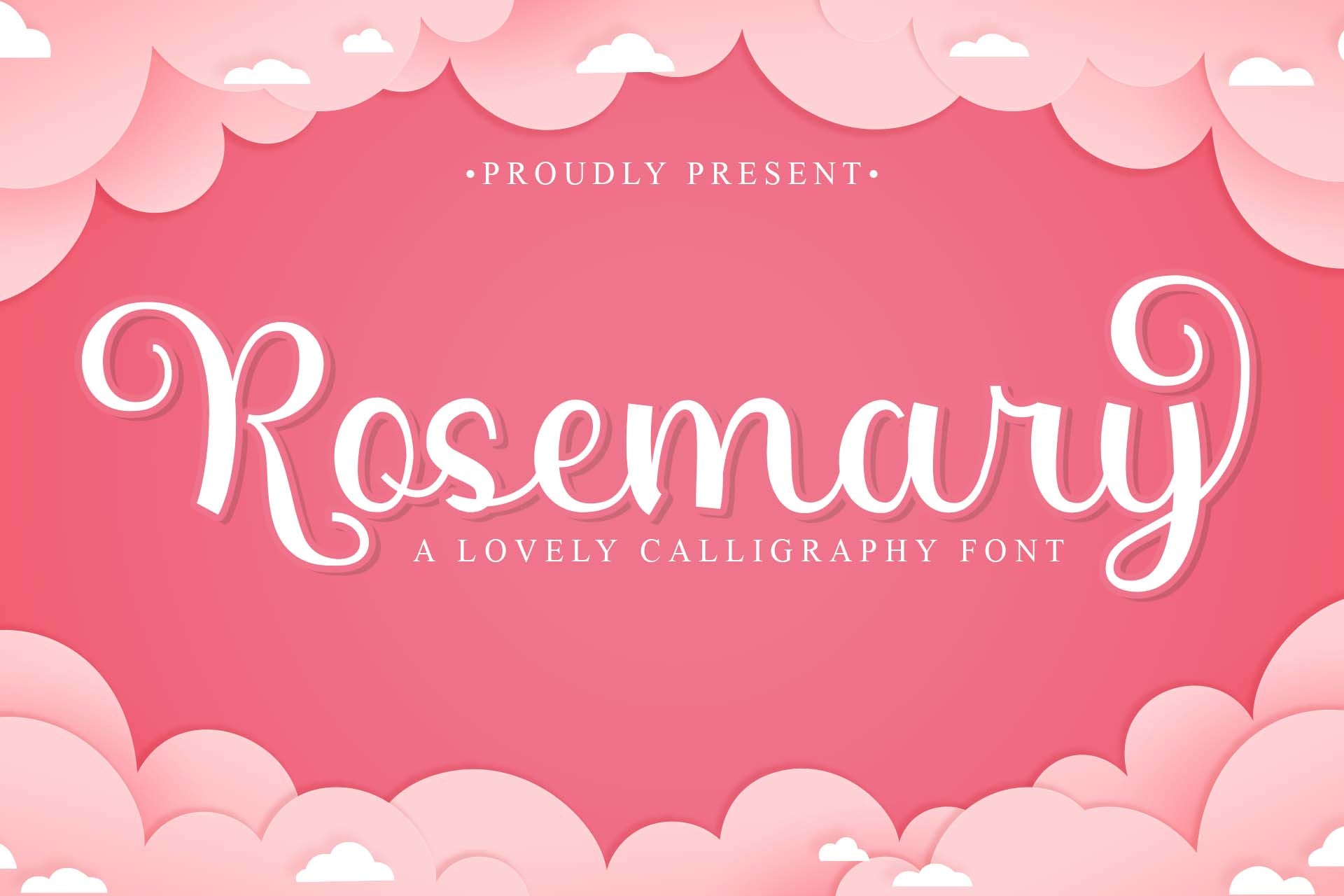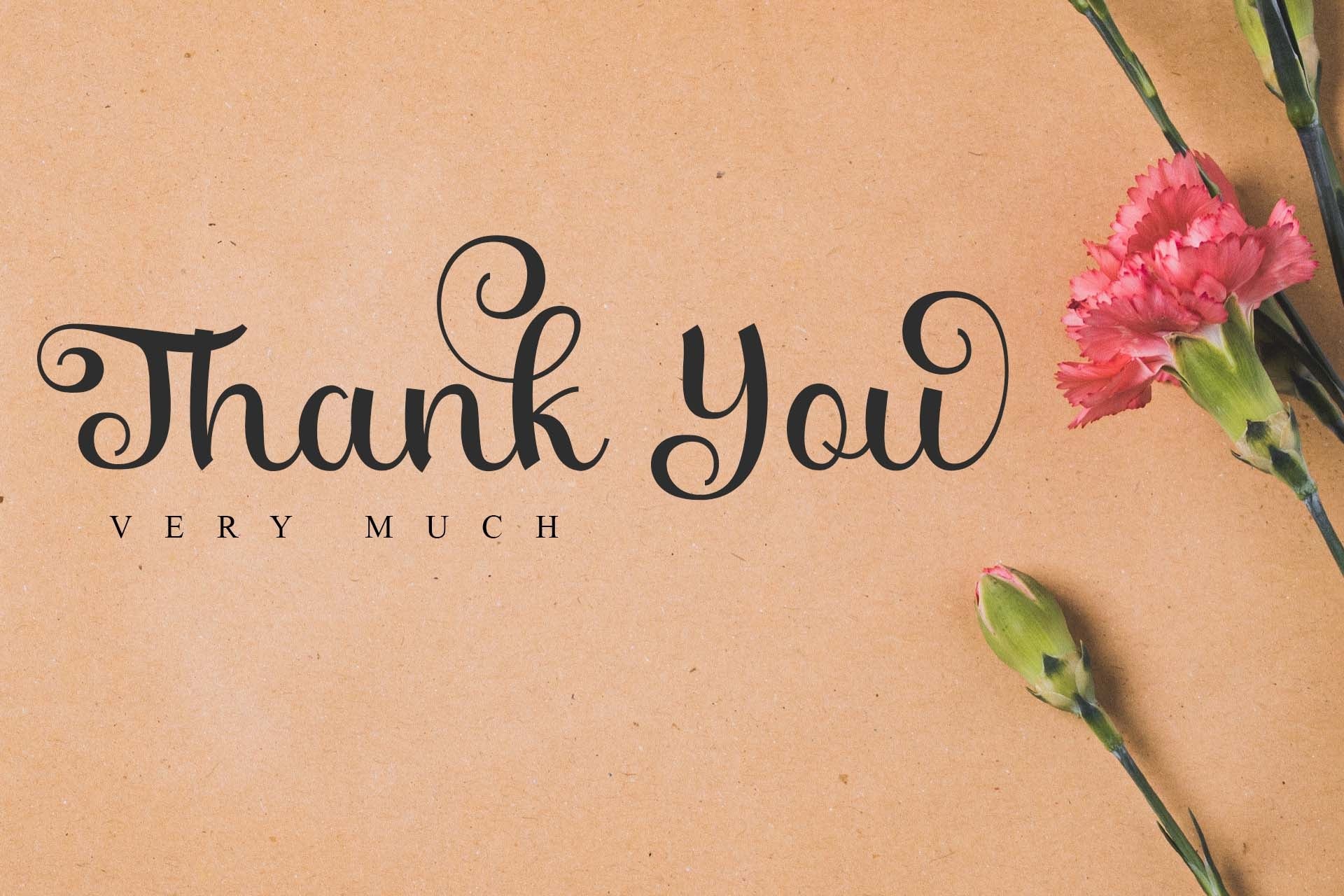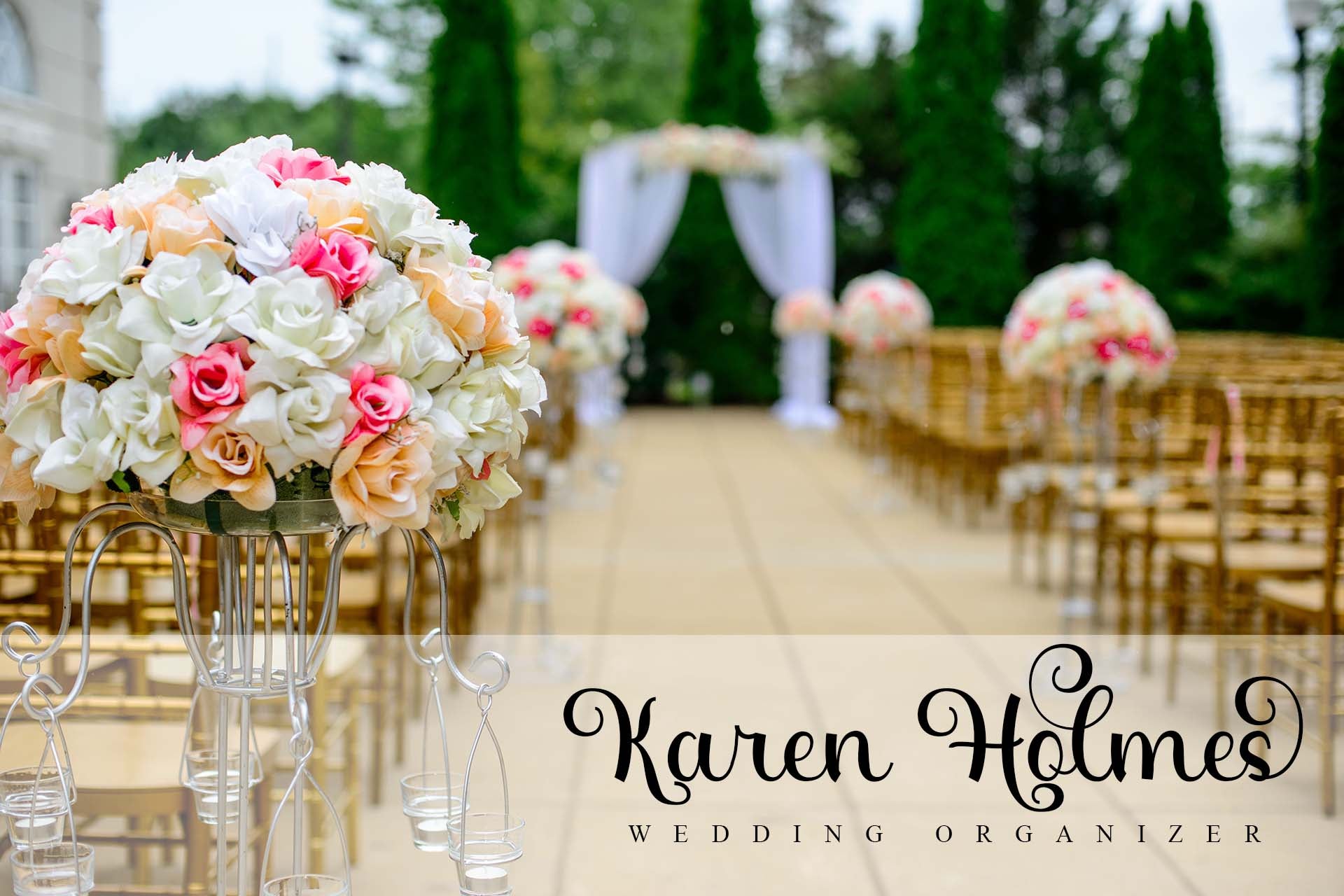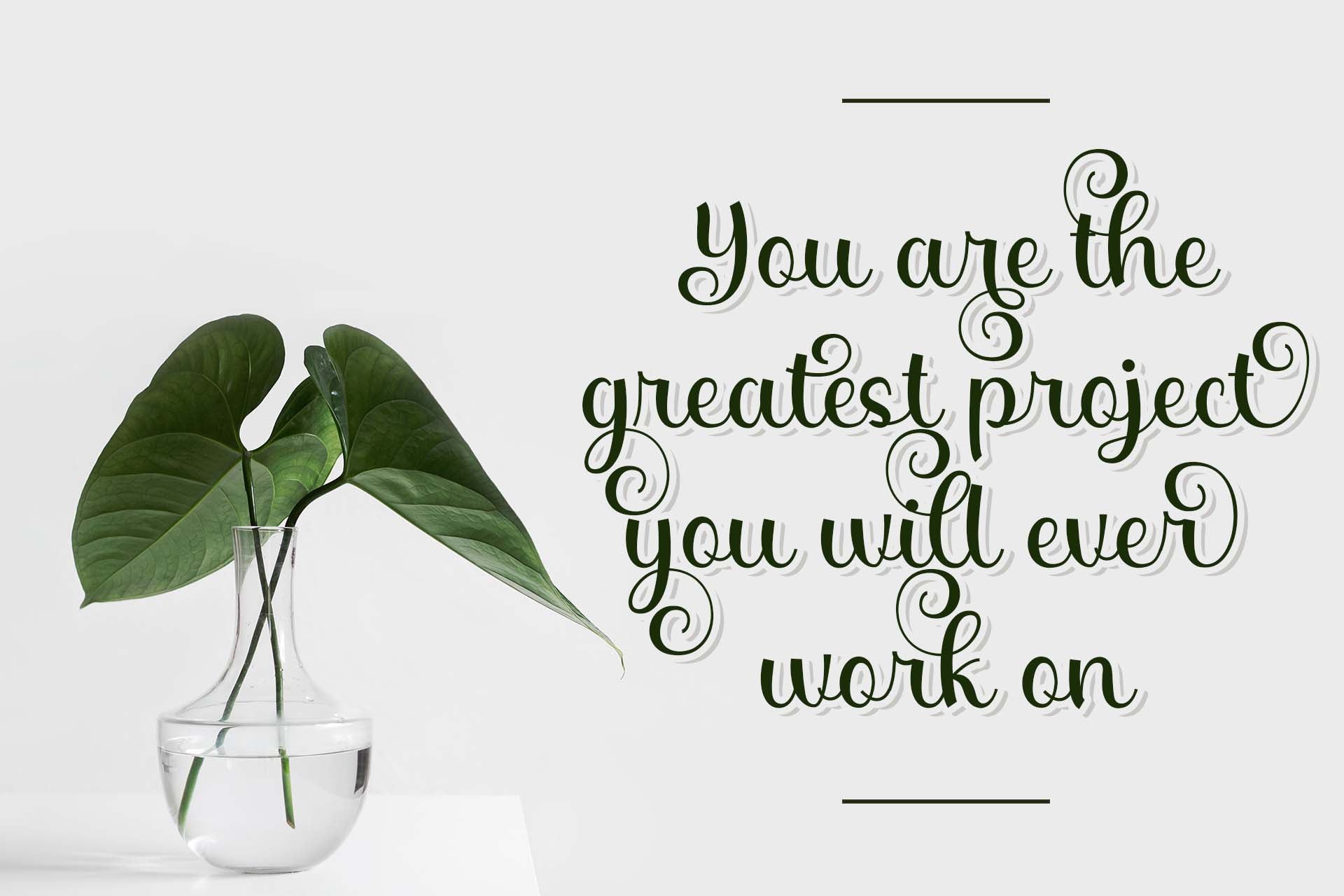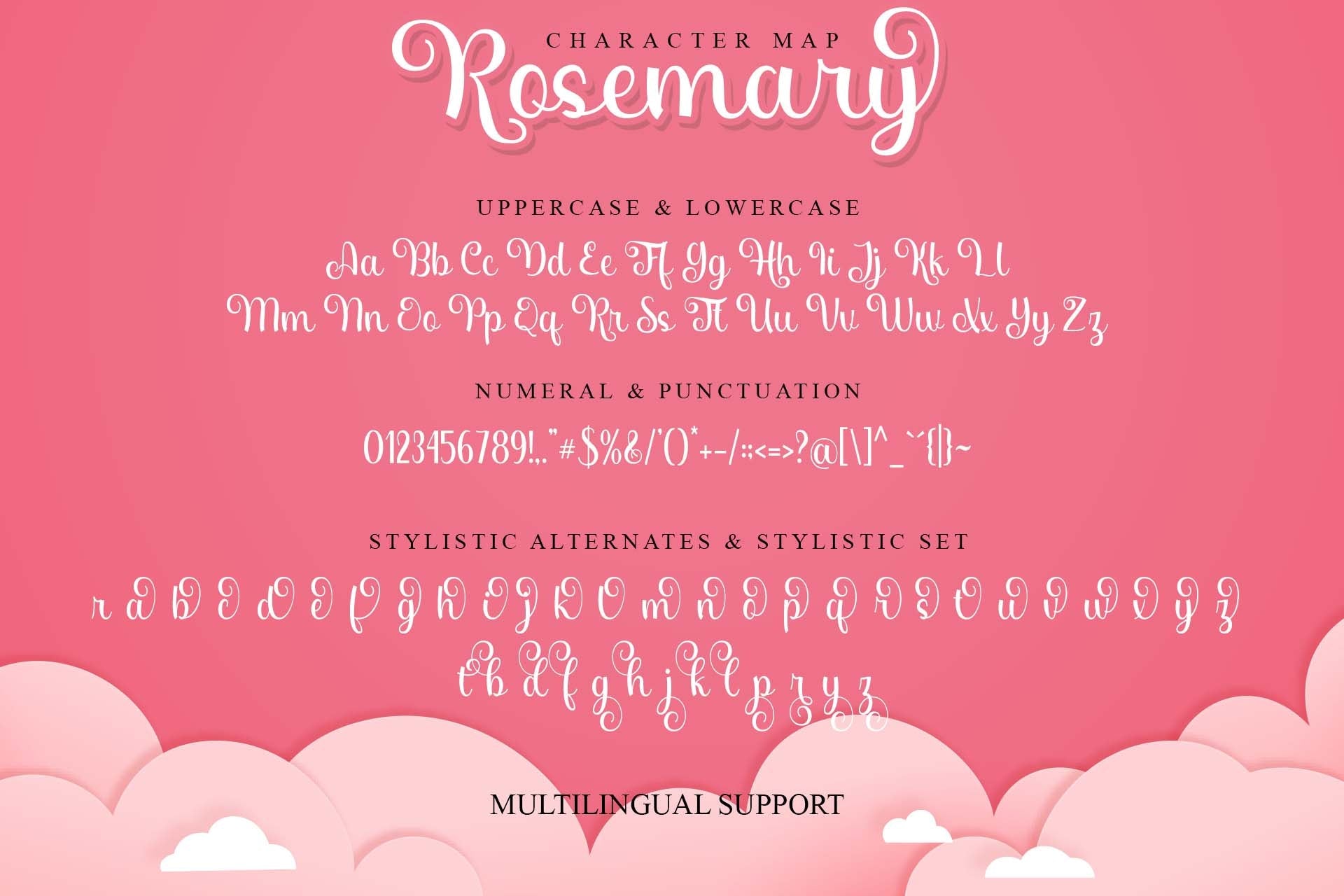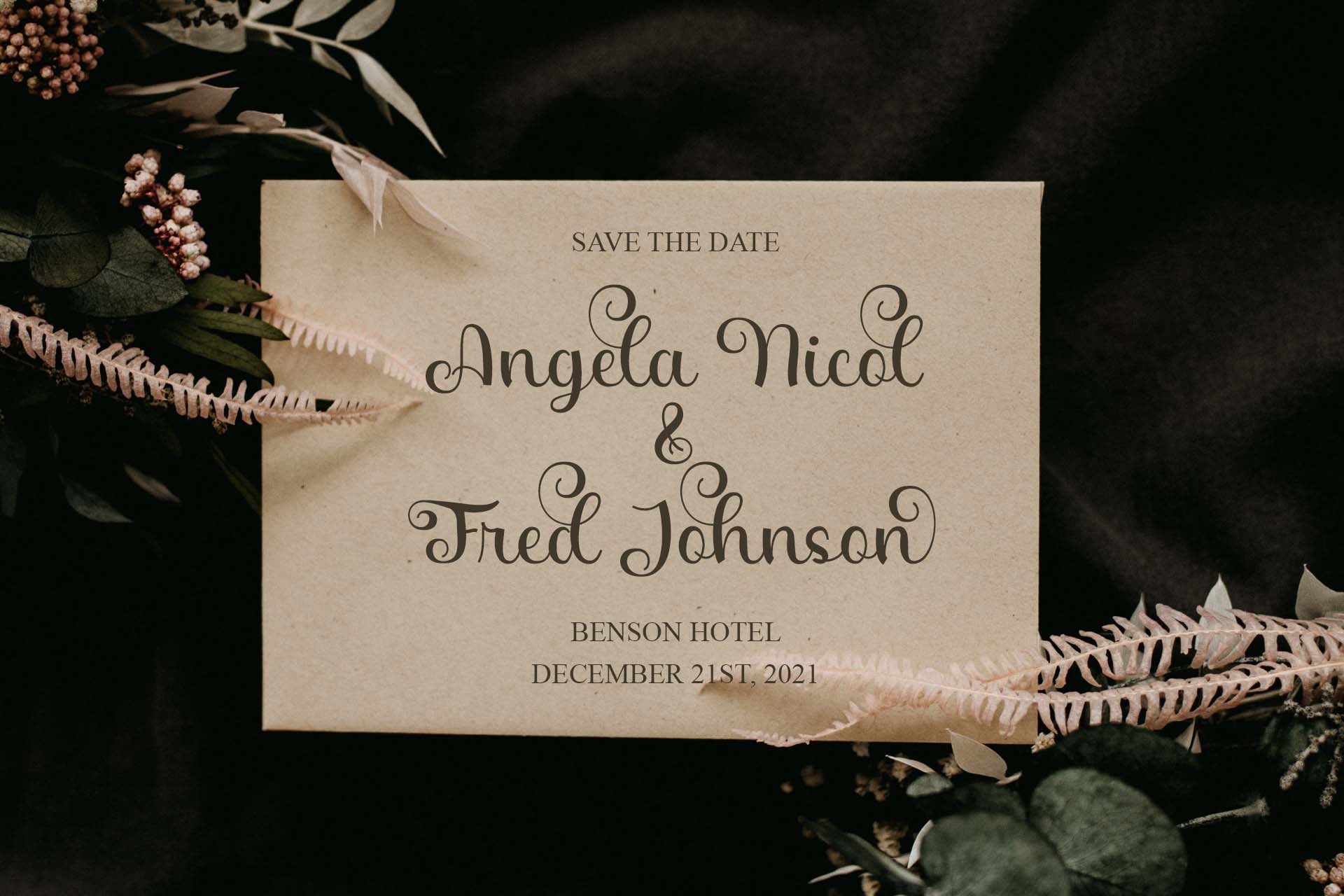
Rosemary
About Rosemary
Rosemary is a chic and joyful script font that emanates trendiness and versatility. Its stylish alternates make this font the perfect match for any project. Batlyne is PUA encoded which means you can access all glyphs and swashes with ease!